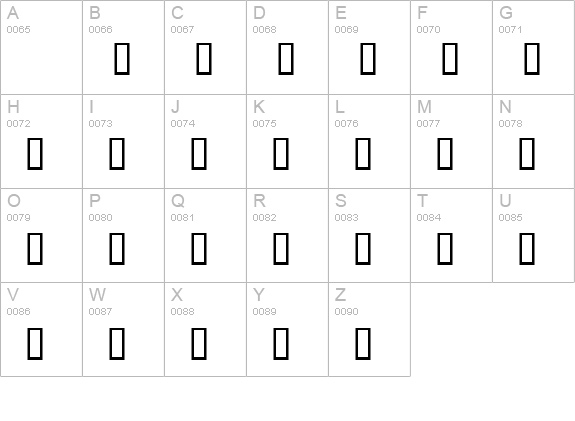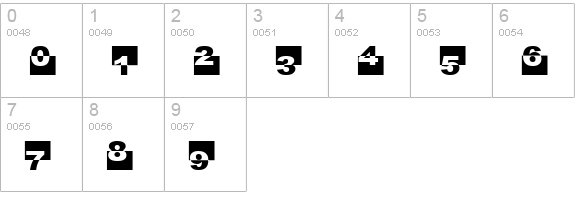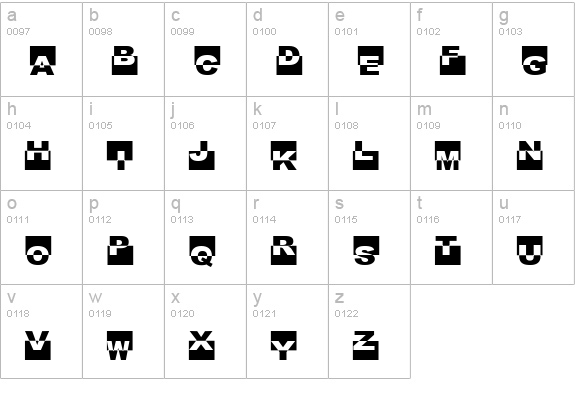
Black Box is a maximum-weight, dramatic variant in the Black typeface family \xE2\x80\x94 well suited to maximum-impact headlines, posters, and packaging.
The Black Box font is a modern and sleek typeface that exudes elegance and sophistication. With its sharp lines and bold presence, this font is perfect for creating impactful designs and eye-catching visuals. Its versatile nature makes it suitable for a wide range of projects, from branding to editorial design. What sets Black Box font apart is not just its striking appearance, but also the fact that it is available for free. Yes, you read that right - this stunning font can be downloaded at no cost from FontsMarket.com. Whether you're a professional designer looking to add a new font to your collection or a hobbyist seeking to enhance your creative projects, Black Box font is a fantastic choice that won't break the bank. Don't miss out on this opportunity to elevate your designs with the Black Box font - download it for free today and let your creativity soar!